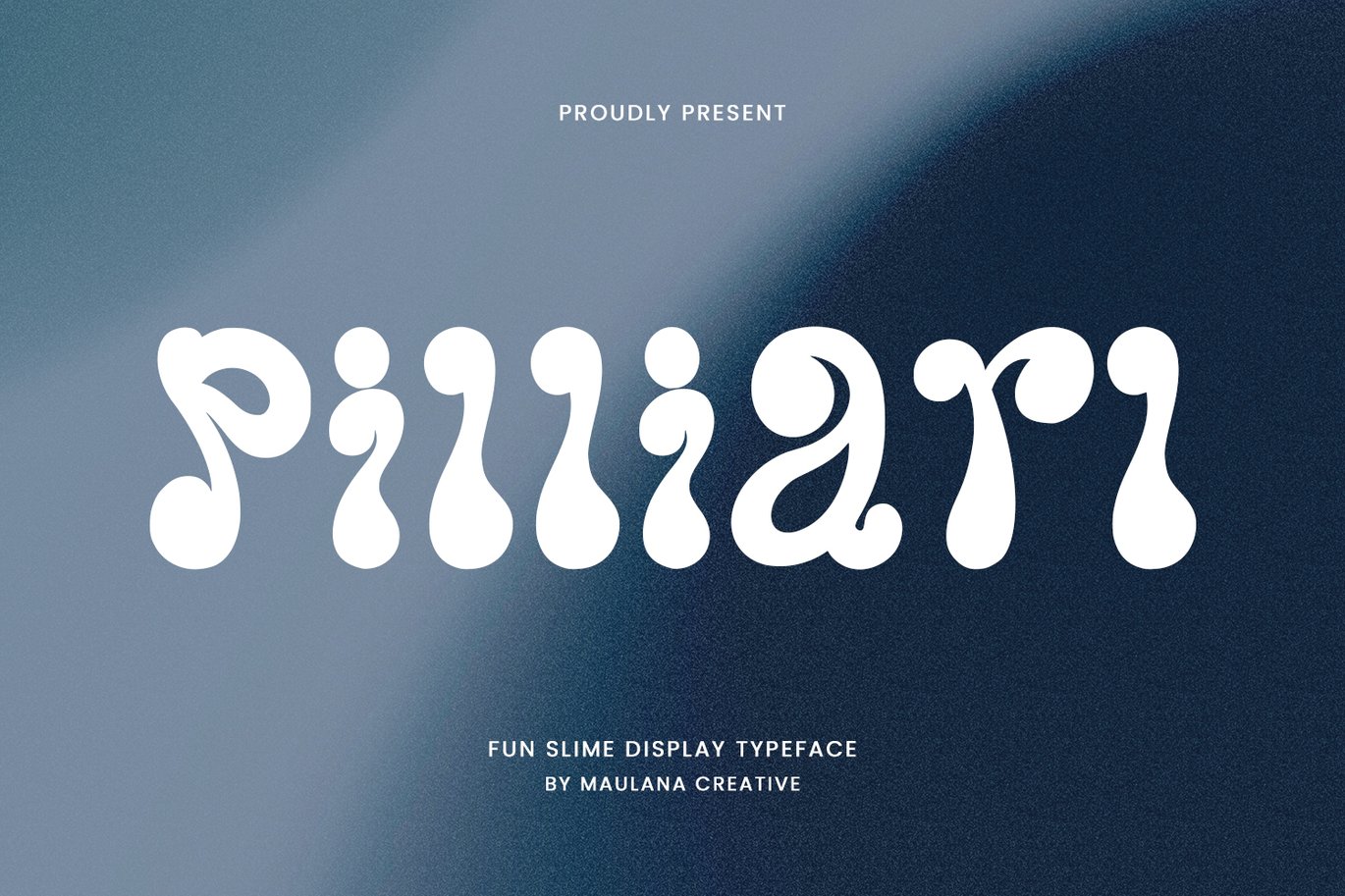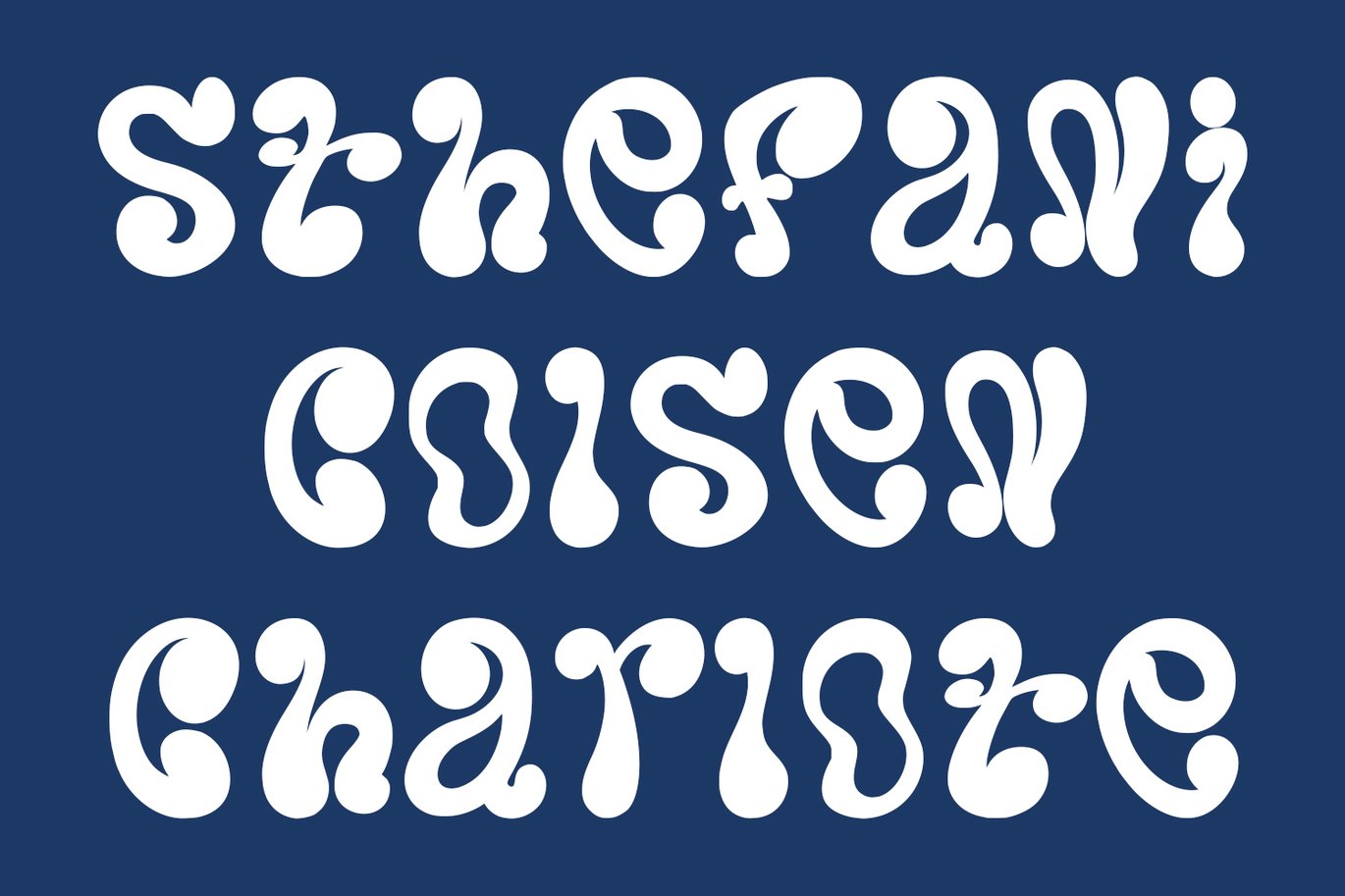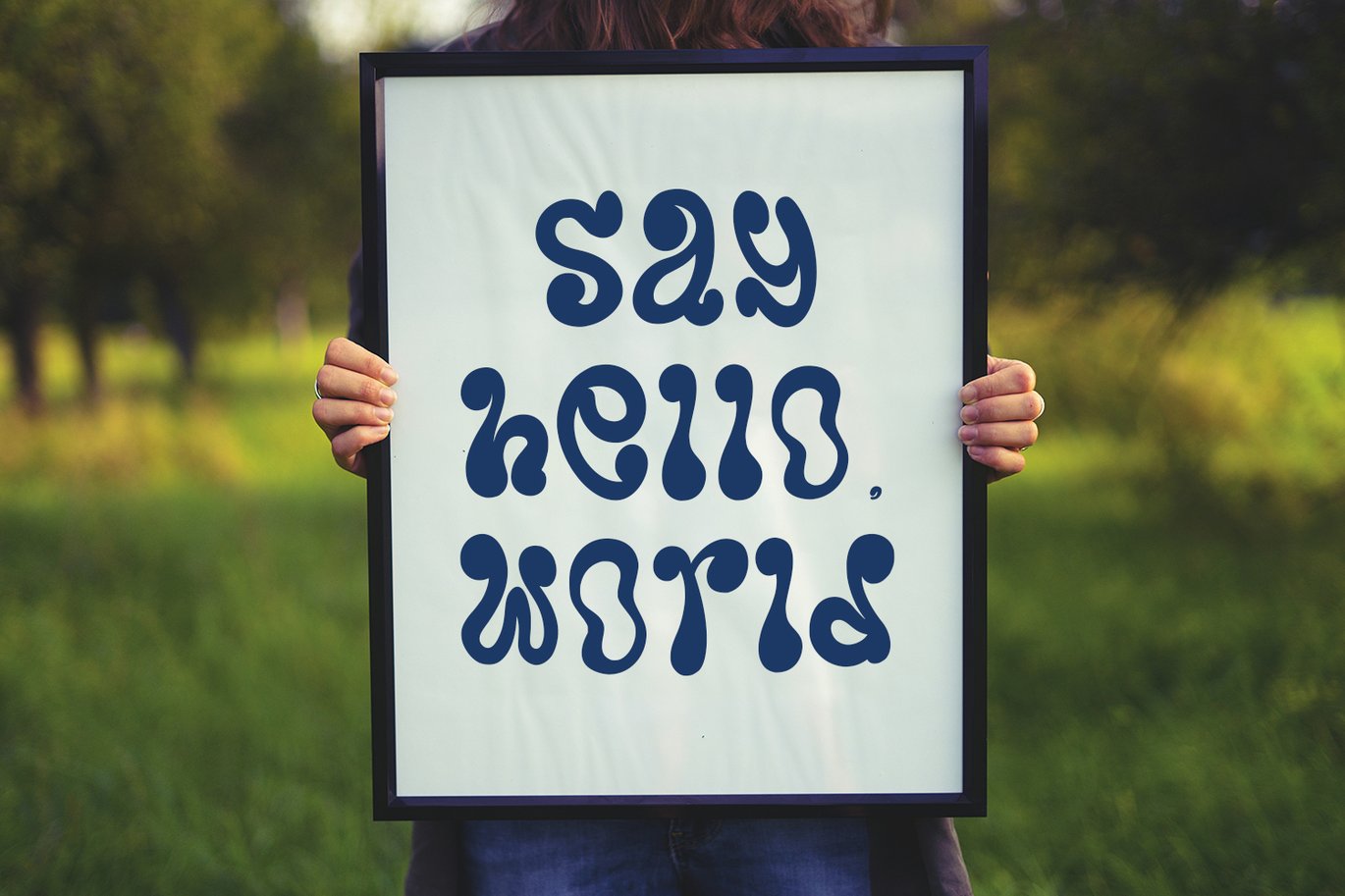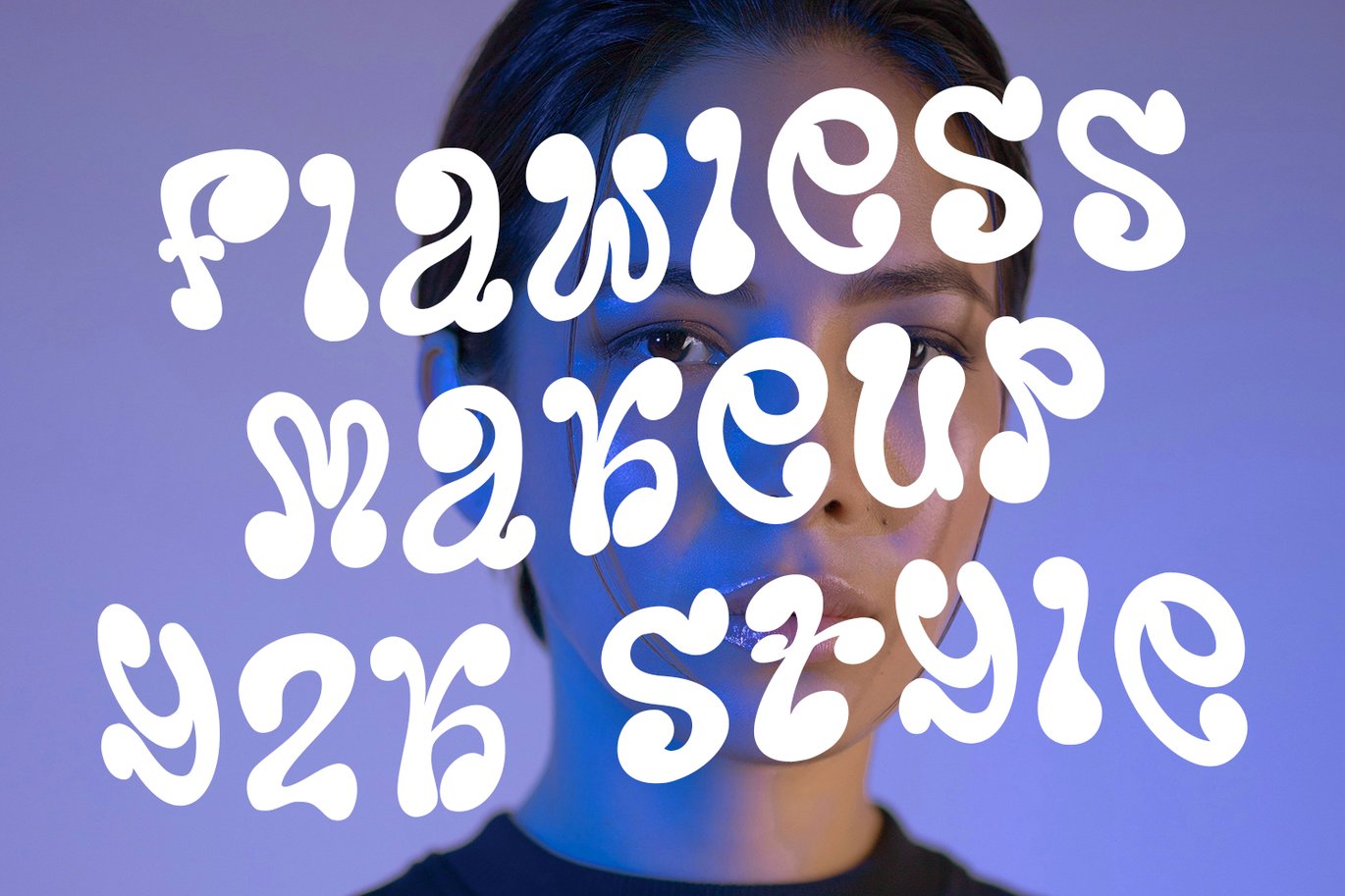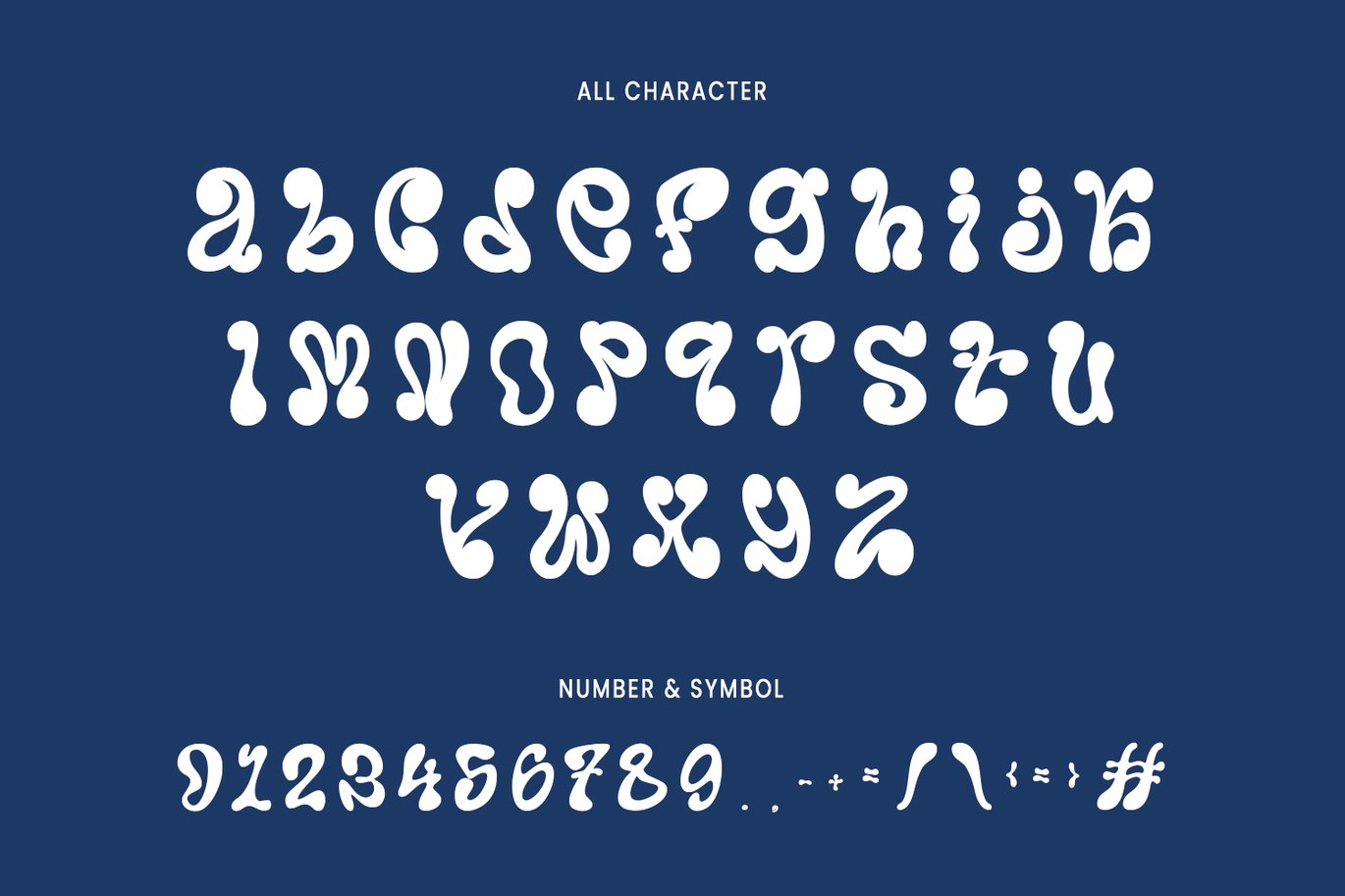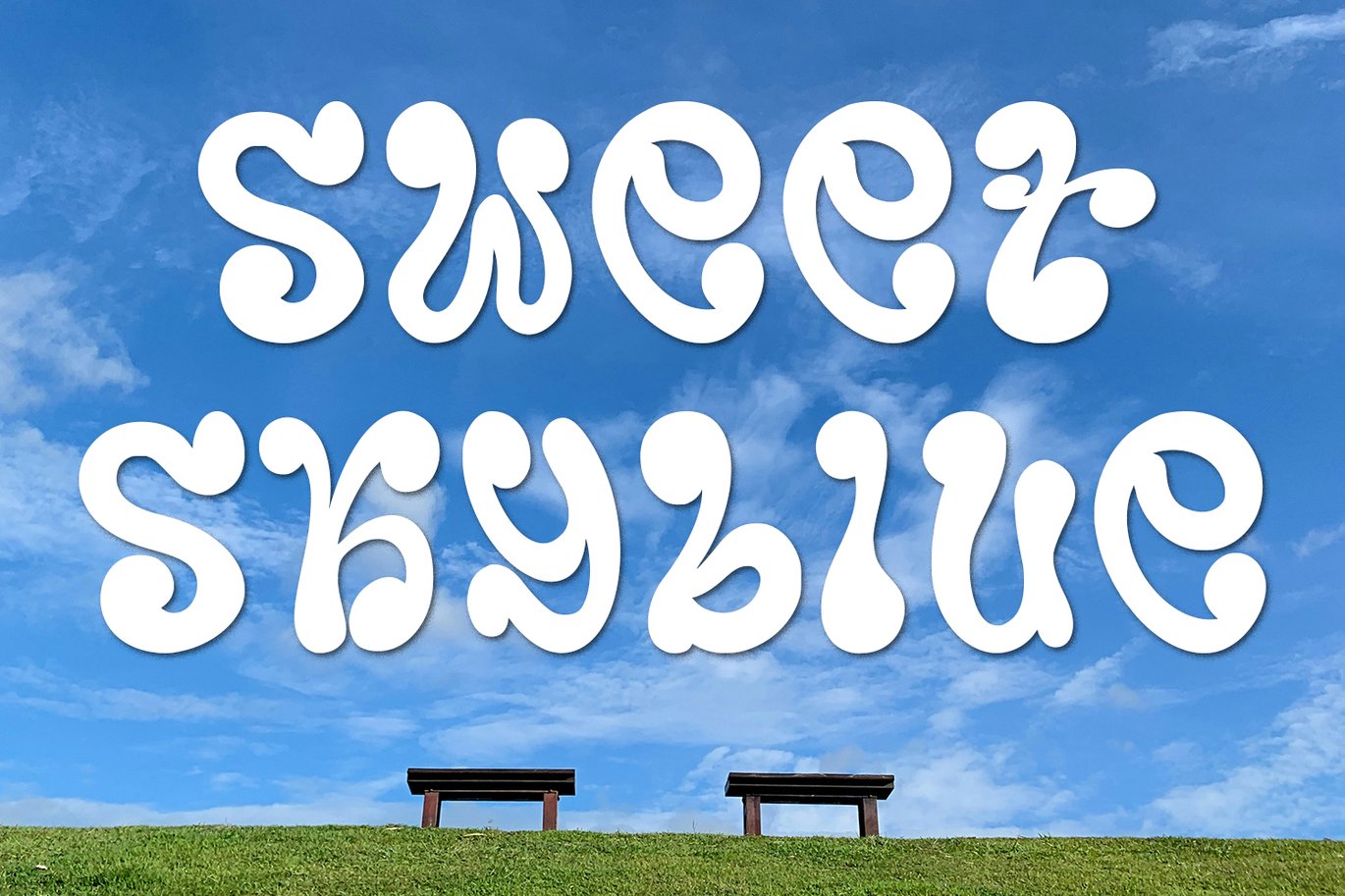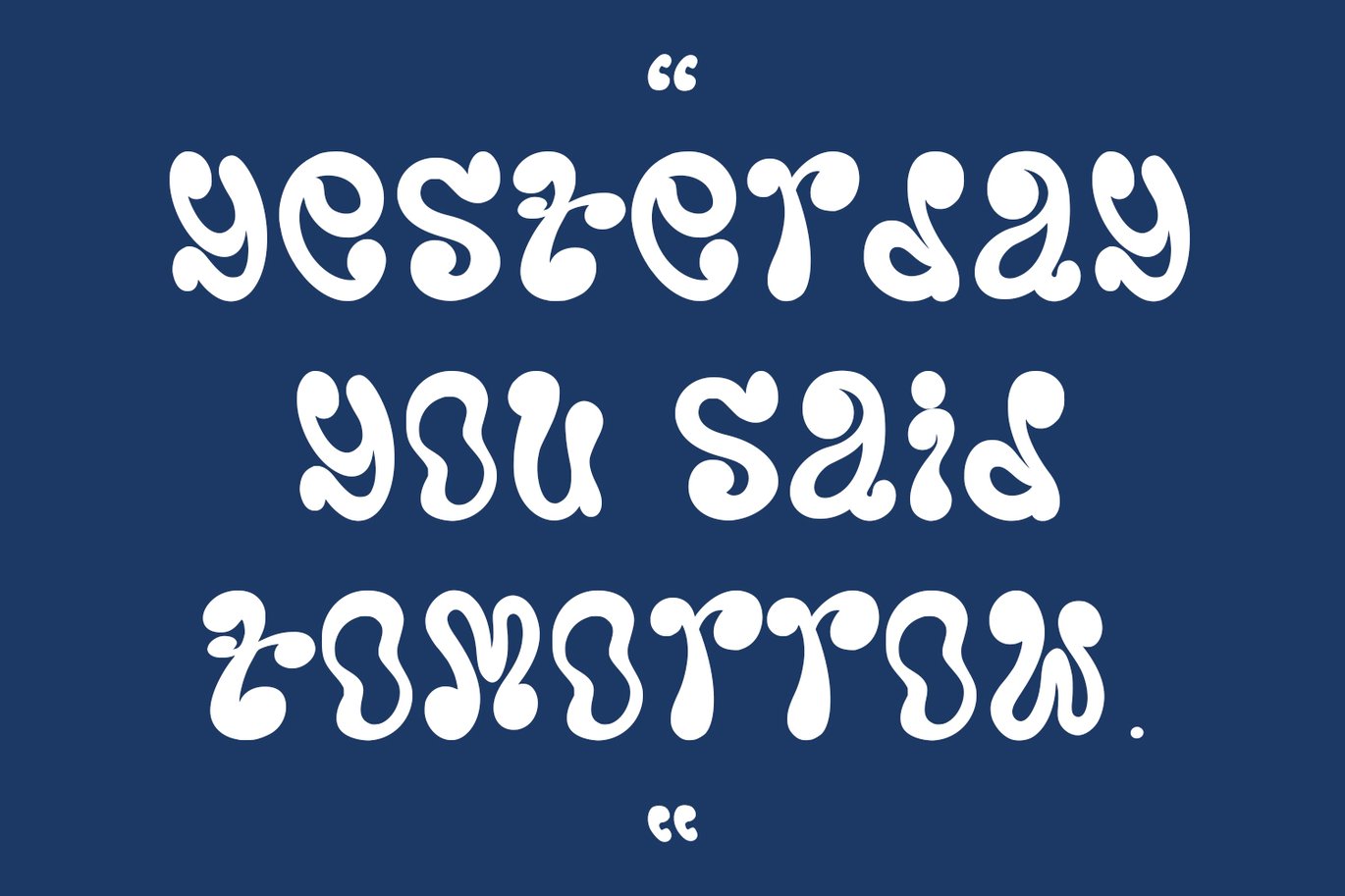
Pilliarl Fun Slime Display Font
Pilliarl fun slime display font. With sharp bold stroke, fun character with a bit of ligatures and alternates. To give you an extra creative work. Pilliarl fun slime display font support multilingual more than 100+ language. This font is good for logo design, Social media, Movie Titles, Books Titles, a short text even a long text letter and good for your secondary text font with script or serif. Make a stunning work with Pilliarl fun slime display font.